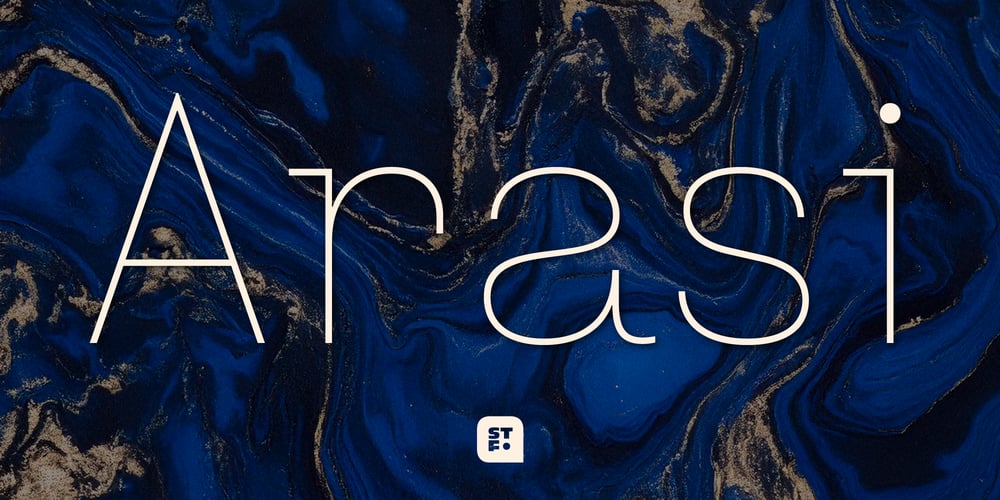
Arasi
Arasi font
Arasi Font Family was designed by Stawix Ruecha and published by Stawix. Arasi contains 19 styles and family package options. Inspired by a love for the monowidth aesthetic of Typewriters, blended with a passion for Futura,the Arasi font was born. The subtle monowidth treatment of characters like ‘w’ and ‘m,’ combined with the condensed texture of the uppercase, really brings out the personality of this typeface.Arasi comes with 9 weights and an italic set, offering variable font support and a range of features designed for a smoother experience.